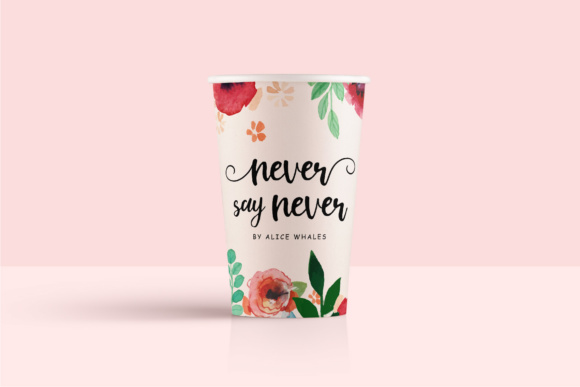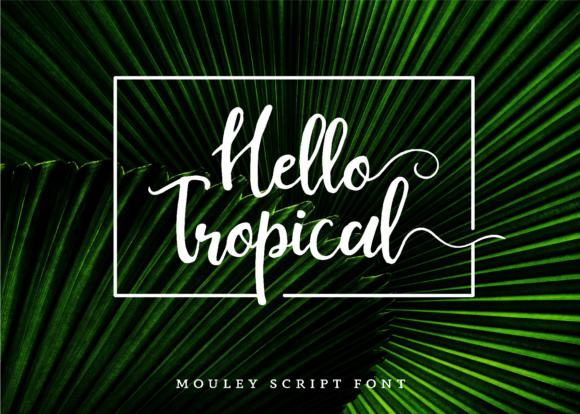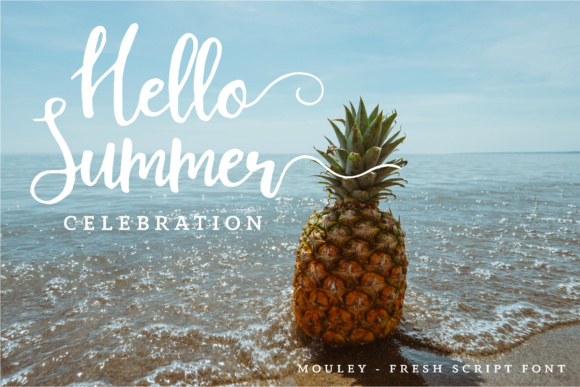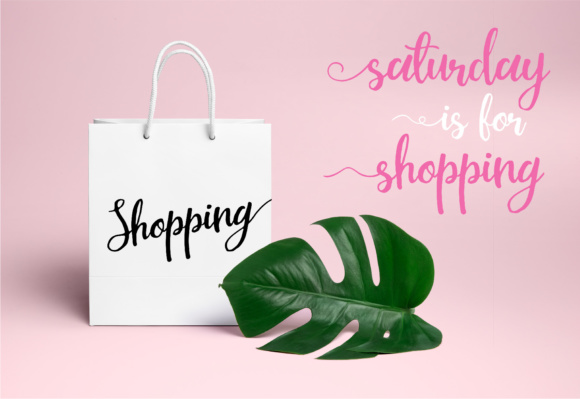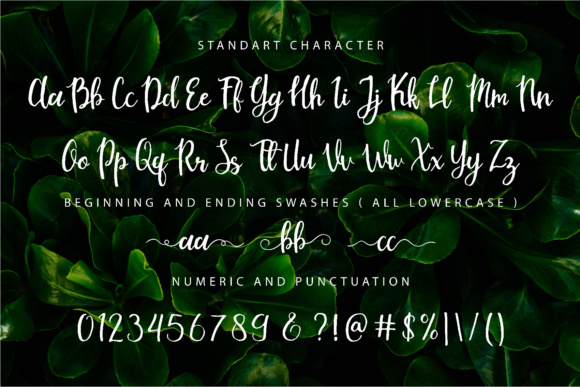
Mouley Font
About Mouley Font
Mouley emerges as a beautiful and trendy handwritten script font, imparting a sense of contemporary elegance to your designs. Its allure lies in its effortless ability to create hand-lettered looks with simplicity and ease. Versatile in both print and digital formats, Mouley is a font that seamlessly integrates into a variety of projects, adding a touch of style and charm.
The handwritten quality of Mouley lends a personal and authentic feel to your designs, making it an ideal choice for those seeking to infuse a human touch into their projects. The script’s trendy vibe captures the spirit of current design trends, ensuring that your creations stay relevant and visually appealing. Mouley is not just a font; it’s a design companion that effortlessly elevates your work with its fashionable aesthetic.
This script font’s adaptability shines in both print and digital products, making it a versatile tool for a range of applications. Whether you’re designing invitations, posters, social media graphics, or websites, Mouley adds a unique flair that catches the eye. Its seamless integration into various platforms ensures a consistent and stylish presentation across different mediums.
Picture Mouley enhancing the elegance of a wedding invitation, its handwritten charm setting the tone for a special celebration. Imagine it gracing the pages of a trendy digital magazine, seamlessly blending with contemporary design elements. The font’s ability to effortlessly create hand-lettered looks adds a layer of authenticity to your designs, making them stand out in a visually saturated landscape.
In summary, Mouley is not just a font; it’s a design asset that brings beauty and trendiness to your projects. Its handwritten script effortlessly creates a hand-lettered appearance, making it a versatile choice for diverse design needs. Whether in print or digital, Mouley ensures your creations are infused with a touch of style, making it a go-to font for those seeking a blend of elegance and contemporary flair in their designs.